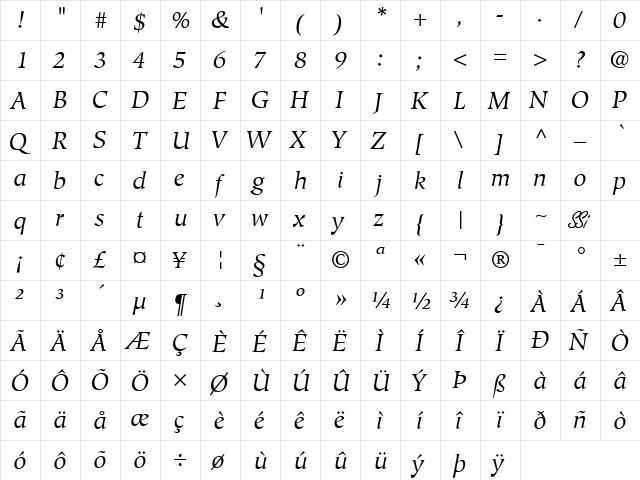
Glossary SSi Italic
Design Context for Glossary SSi Typeface
Glossary SSi is a composed and adaptable typeface that performs quietly and consistently across a wide range of design contexts. The dynamic lean of this cut emphasises speed and emphasis in any layout.
Pro Tip: Use Glossary SSi for emphasis, pull quotes, and subheadings where its slanted energy can add rhythm to the layout.